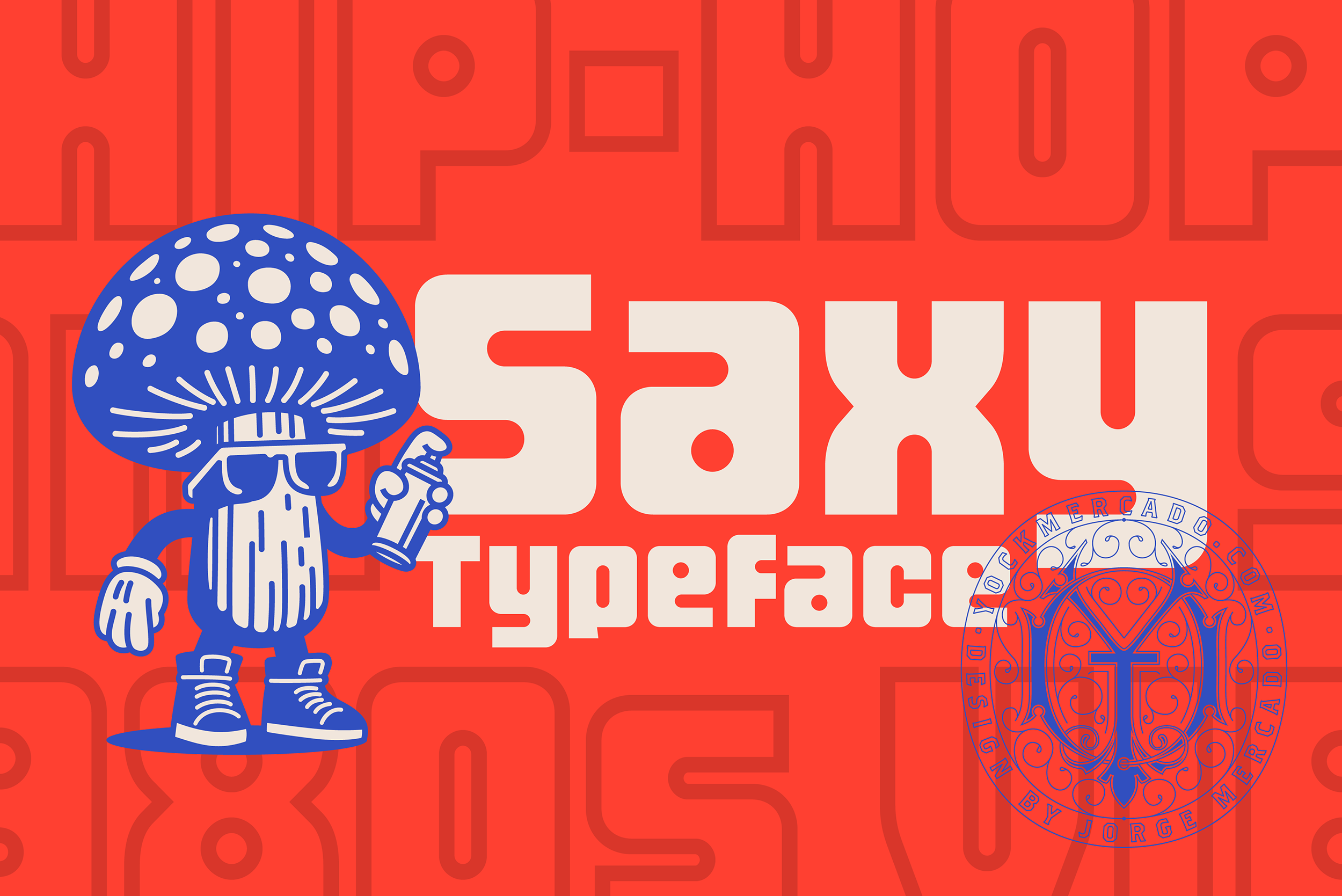
Saxy Typeface
Saxy is a dynamic font blending geometric clarity with a retro flair. Ideal for making headlines and graphics stand out, its modular design offers versatility in branding and advertising applications. Featuring a complete character set with outline and fill variations, Saxy brings an energetic style to any visual message. Express yourself with the bold, unique voice of Saxy.